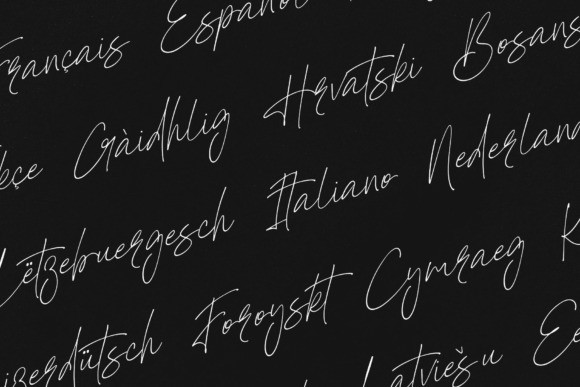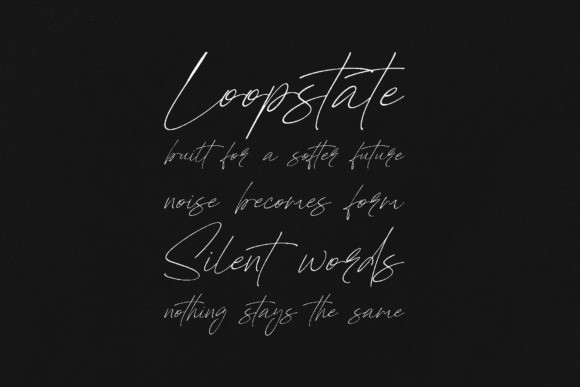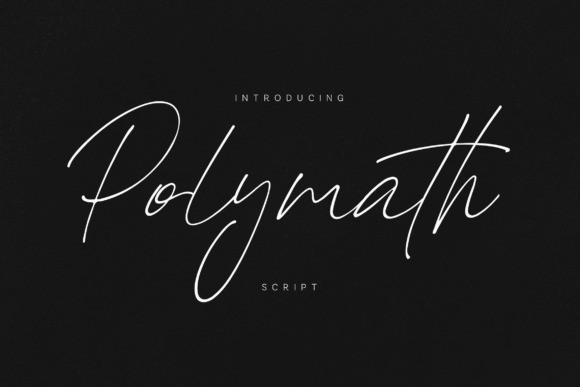
Polymath Handwritten Font
Polymath Handwritten Font Capture the breezy elegance of authentic penmanship with Polymath. This monolinear script features airy, elongated loops and a relaxed, horizontal rhythm that mimics the confident stroke of a professional’s signature. Its minimalist construction ensures it feels light and contemporary, providing a sophisticated “human touch” to digital and print layouts without overwhelming the secondary design elements.Best Used For: Personal branding, lifestyle photography watermarks, boutique logos, and modern social media signatures.